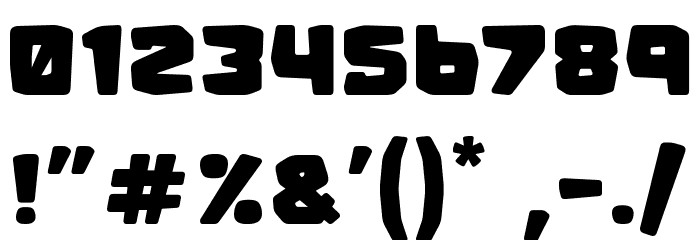
Trinta_quatro Bold Font
This bold and impactful font features a playful and chunky design, characterized by its thick strokes and rounded edges. The uppercase letters are uniform in height, creating a cohesive and balanced appearance. The numbers and special characters maintain the same boldness, ensuring consistency throughout. Its unique style makes it stand out, with a slightly whimsical touch that adds personality to any text. The font's design is both modern and approachable, making it suitable for a variety of creative applications.
A bold, playful font with thick strokes and rounded edges.
- Proposed Projects: Ideal for children's books, playful branding, posters, and event flyers.
- Overall Style: Playful, Modern